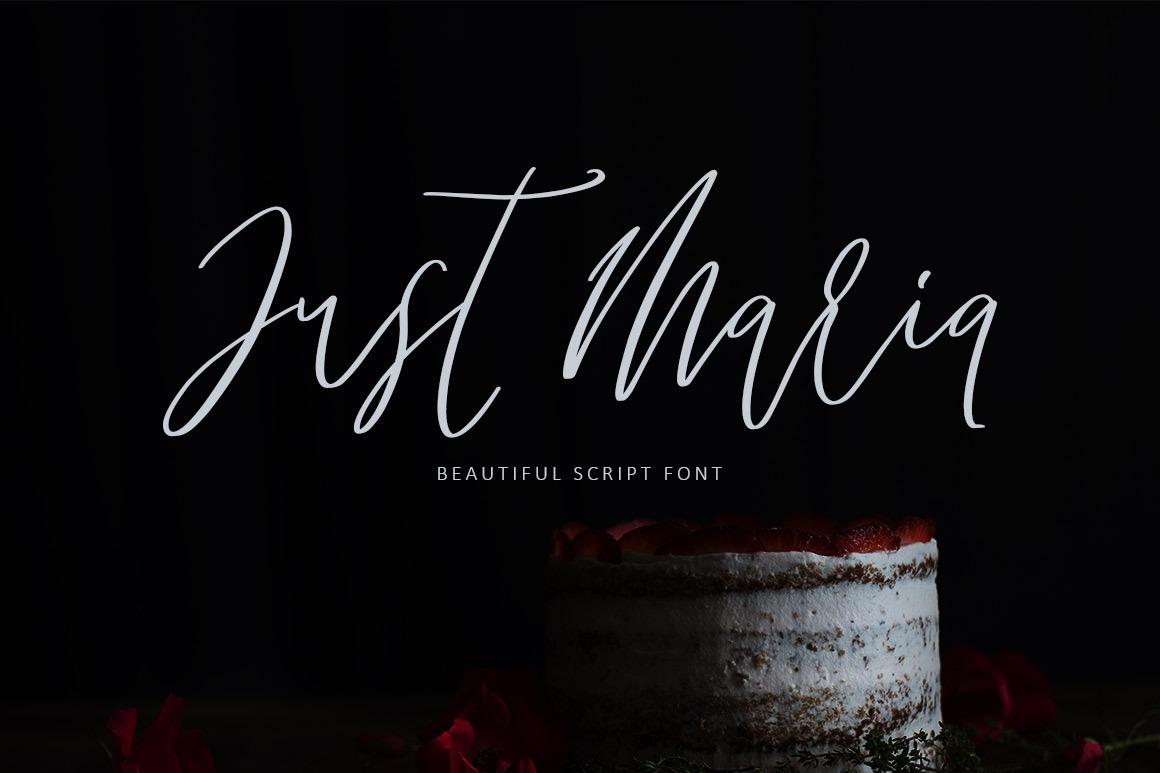
Just Maria Script Font
Introducing Just Maria Script Font
This is a beautiful hand written script with so much character and charm.
International characters included.